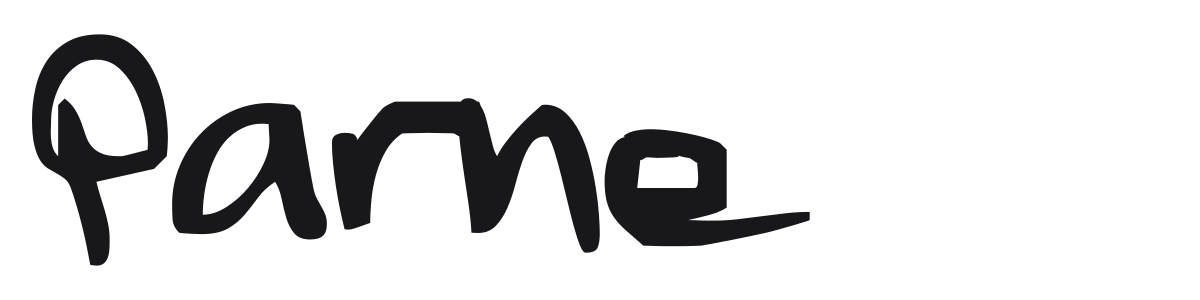
Parne
Parne is a thick, casual handwritten face by Magnus Parnebring that captures the confident energy of someone writing big with a heavy marker. The bold strokes feel loose and unhurried, with just enough irregularity to read as genuinely hand-done. It works well for headlines, packaging, and informal branding where you want something playful and personal with real visual weight.